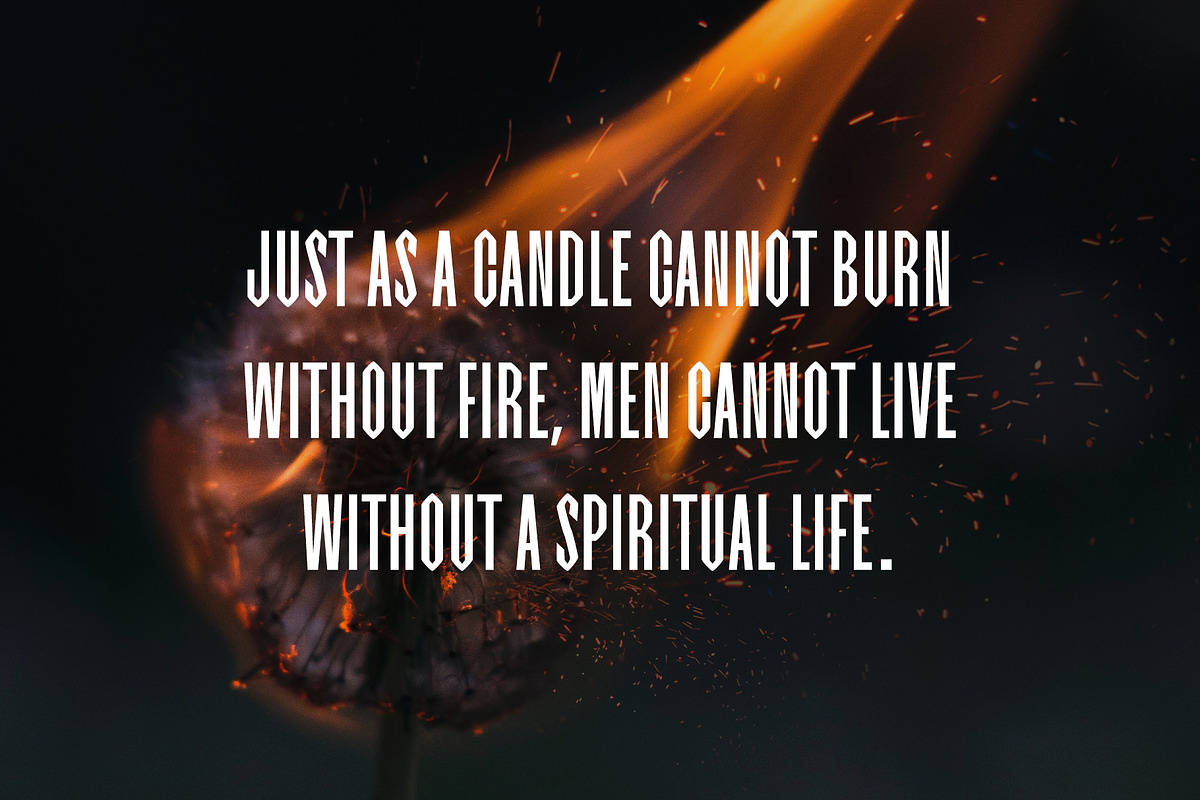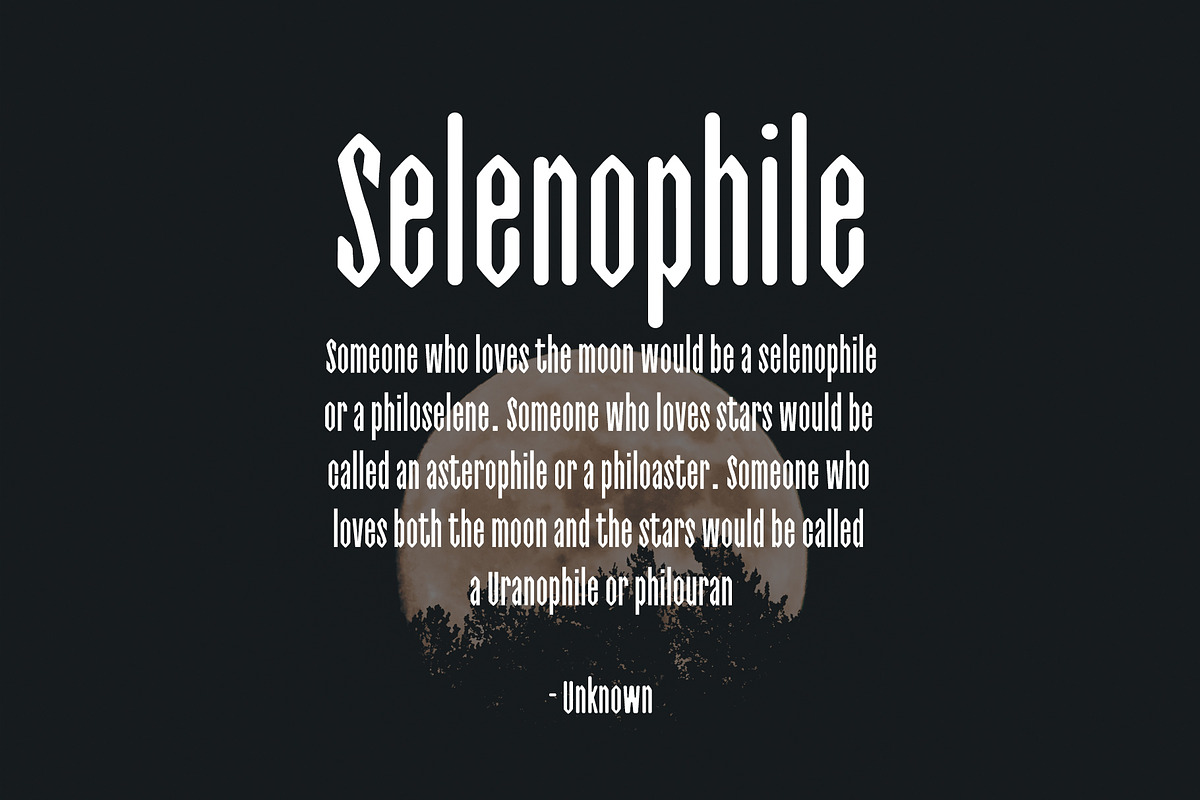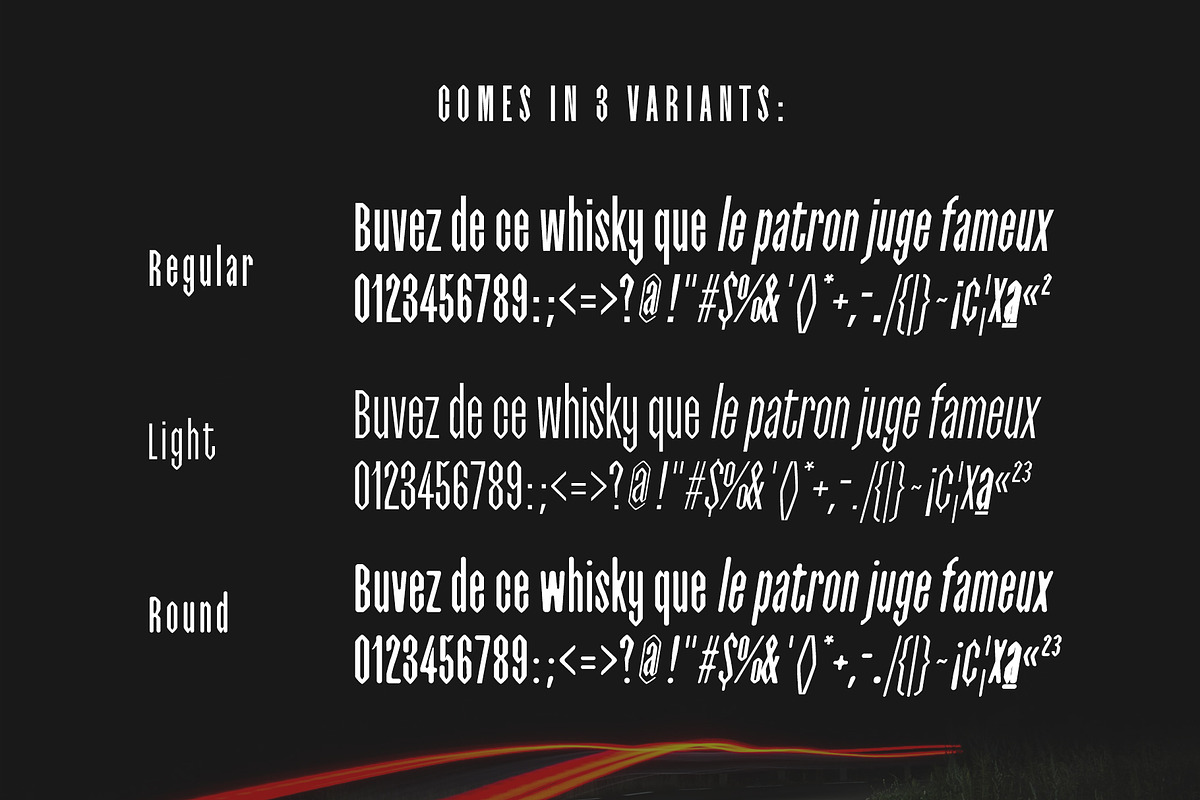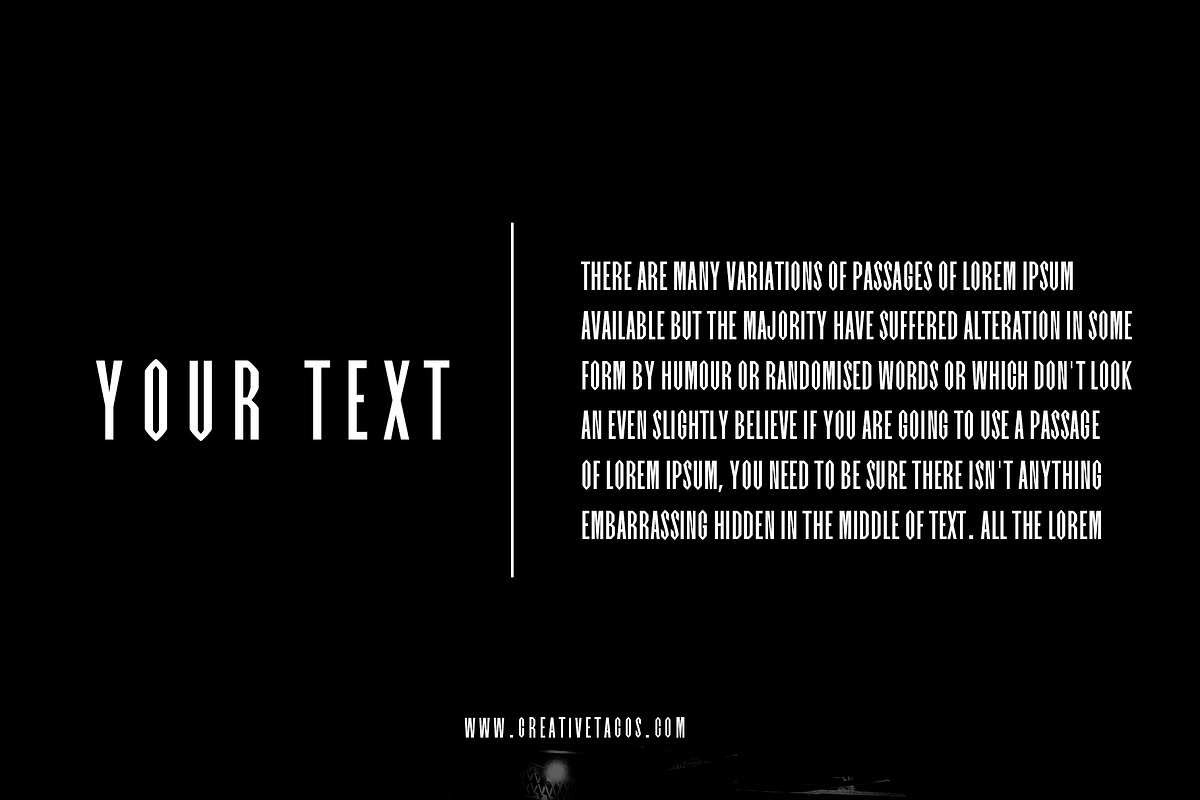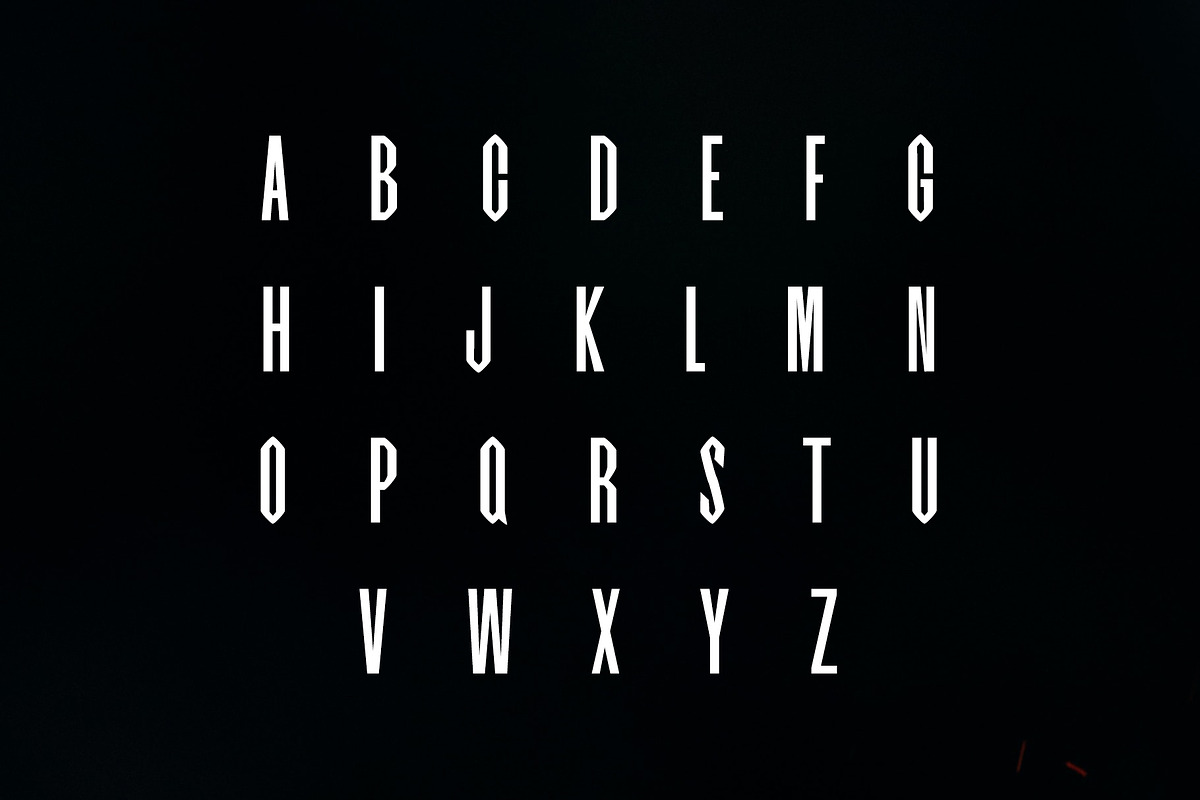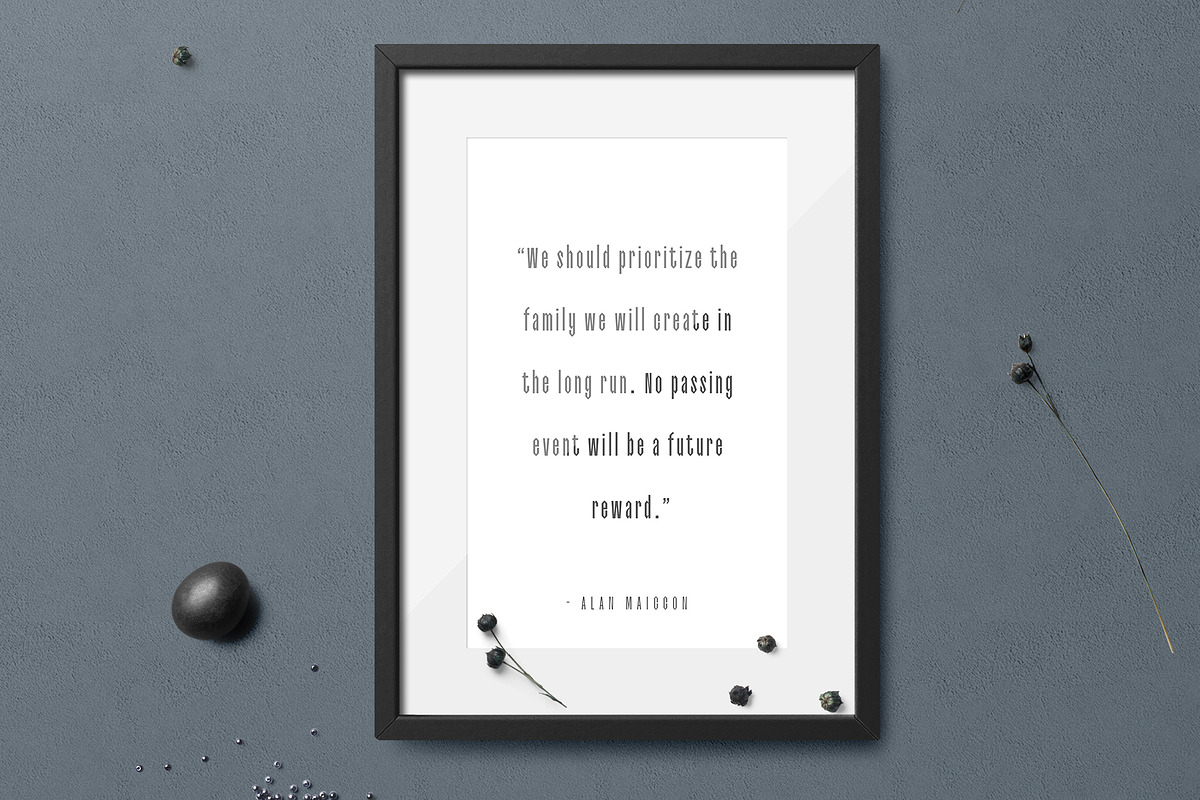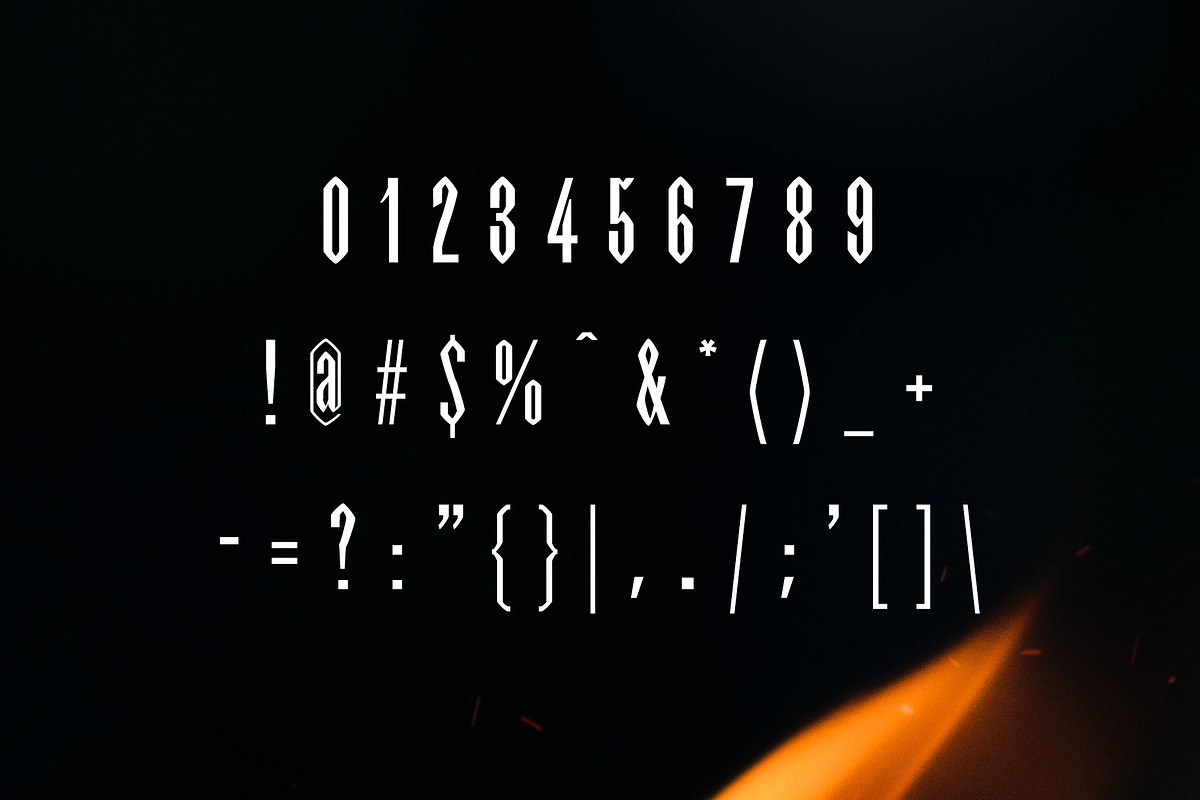
Isaac Display Font Family
Isaac is a creative display typeface with strong personality and wide choice of weights. It includes uppercase, lowercase, number, punctuation, symbols, with non-english characters. Isaac makes it perfect for logo, greeting cards, posters, branding, name card, stationary, design title, blog header, quotes, typography, headlines, packaging, presentations, titles, magazines, headings, web layouts, advertising, invitations, packaging design, books, and nearly any creative design.
Font Weight: Regular, Italic, Light, Light Italic, Round and Round Italic
Numbers and Punctuation
Isaac Display Font Family by Creativetacos fits naturally into Branding, posters, packaging, typography.